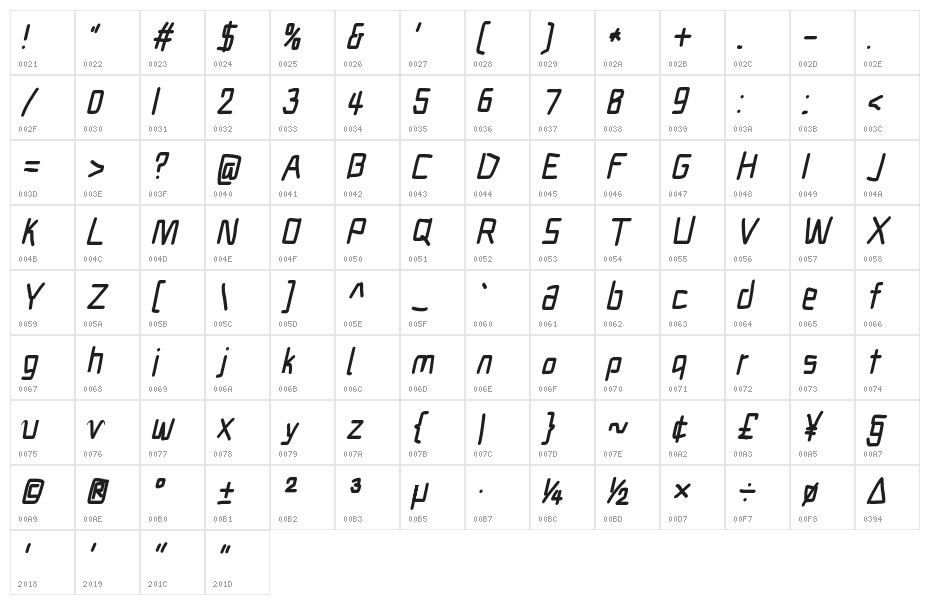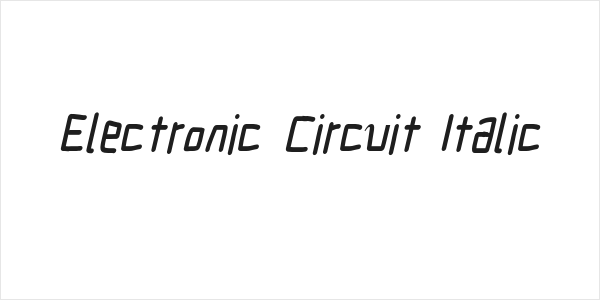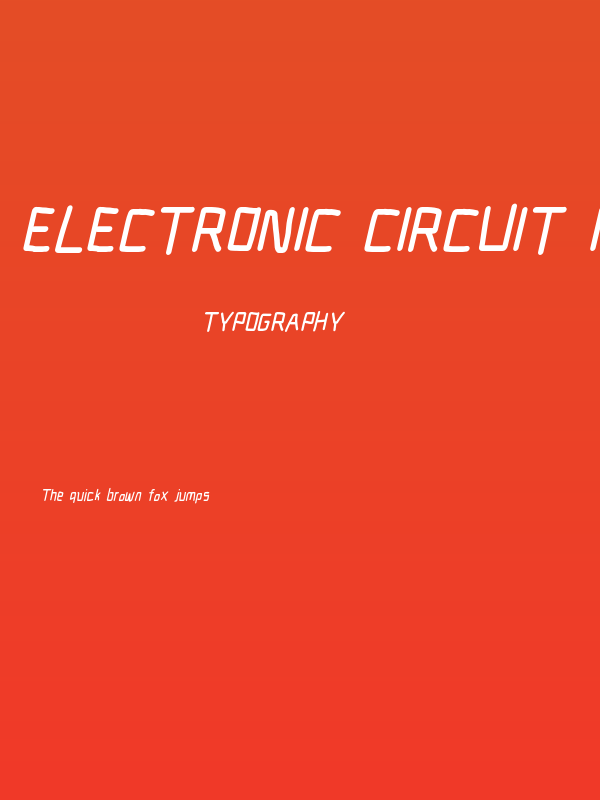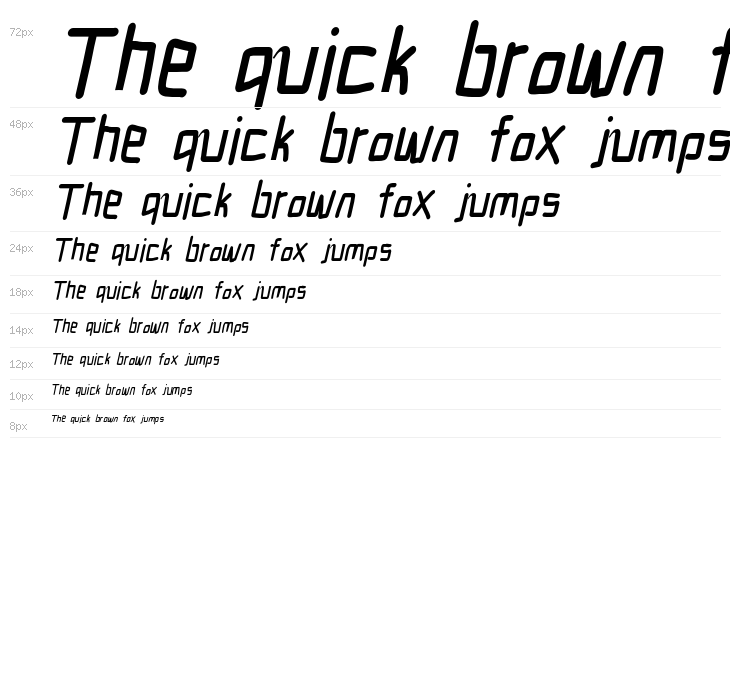
Electronic Circuit Italic Font
Electronic Circuit Italic Description
This font exhibits a modern, technical style with a distinct italic slant, reminiscent of electronic circuits and digital displays. The characters are uniformly designed with a consistent stroke width, giving it a sleek and futuristic appearance. The uppercase and lowercase letters maintain a geometric form, with rounded edges that soften the overall look. Numbers and special characters follow the same design principles, ensuring a cohesive visual identity. The font's unique style makes it suitable for projects that require a technological or innovative feel.
| Use Case | Logos, Headlines, Digital Interfaces |
| Proposed Projects | Ideal for tech-related branding, digital interfaces, futuristic posters, and innovative product packaging. |